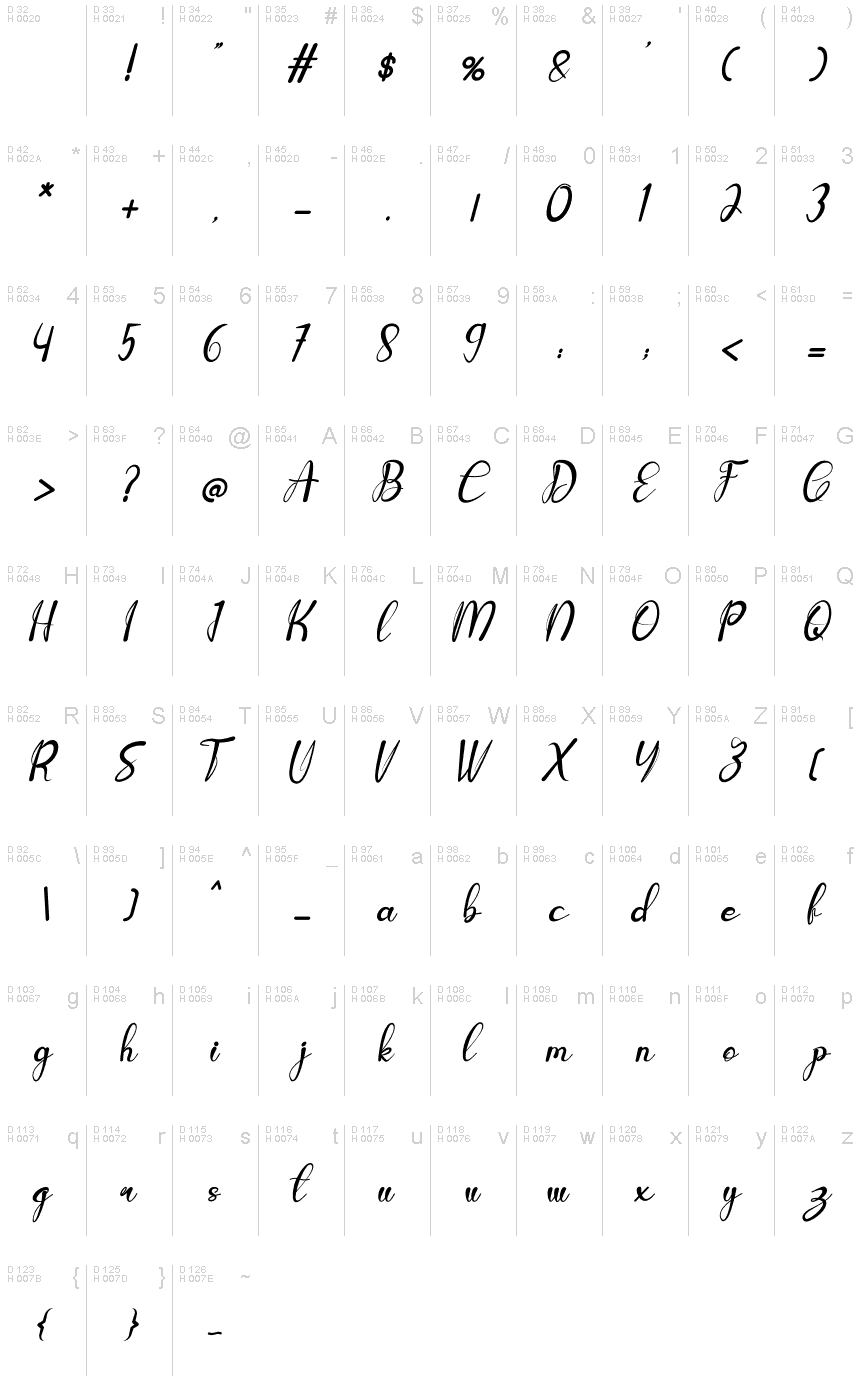
Business Italic
Looking to add a touch of elegance and sophistication to your next project? Look no further than Business Italic, the stunning handwritten font from Design Vector10. With its semi-light weight and graceful curves, this font is perfect for everything from wedding invitations to restaurant menus. Whether you're looking to evoke a sense of old-world charm or simply add a touch of class to your design, Business Italic has got you covered. So why wait? Try it out today and see just how versatile this beautiful font can be!